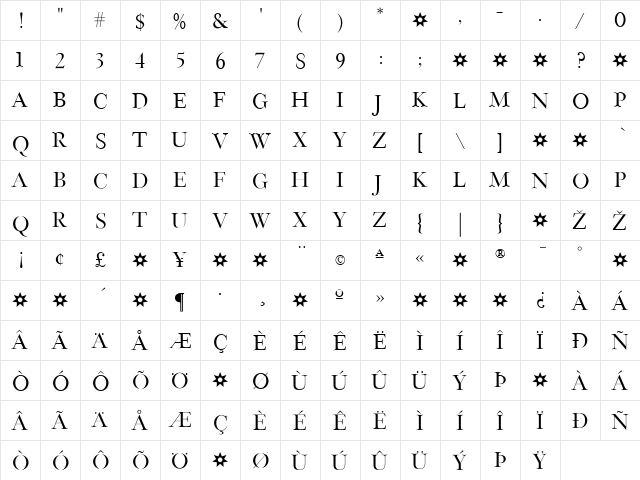
Wessex Regular
Design Context for Wessex Typeface
Wessex offers clean, dependable letterforms without strong stylistic allegiance, making it a practical choice for designers who need flexibility.